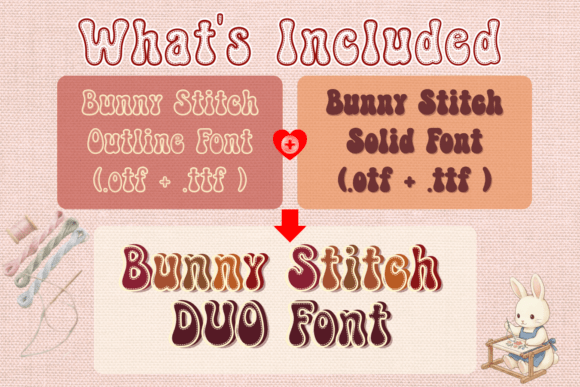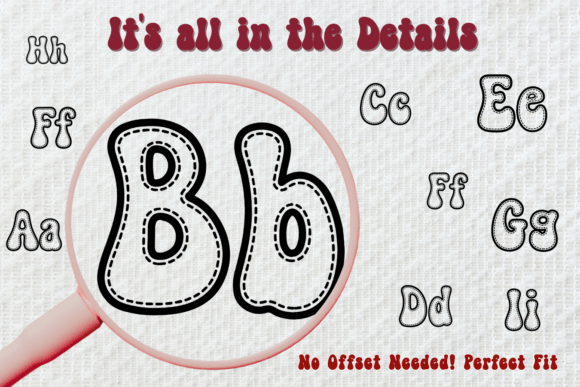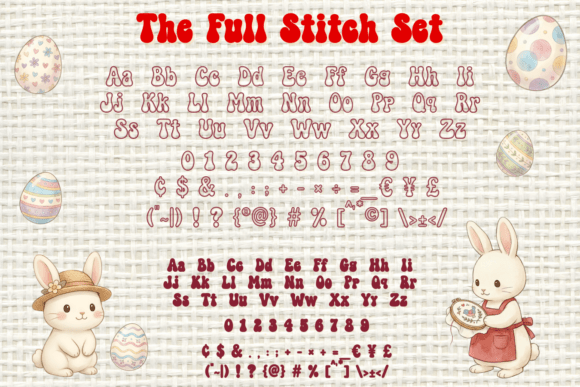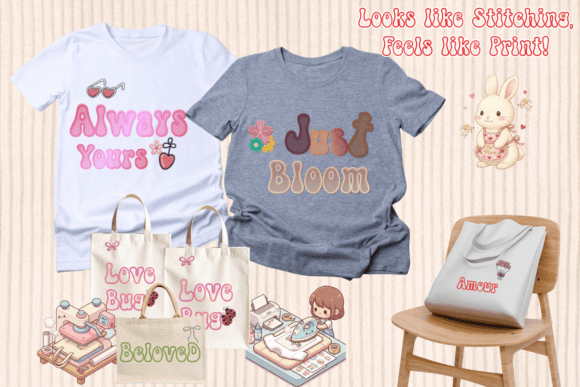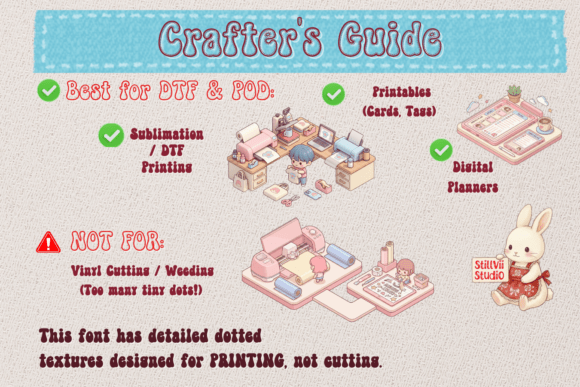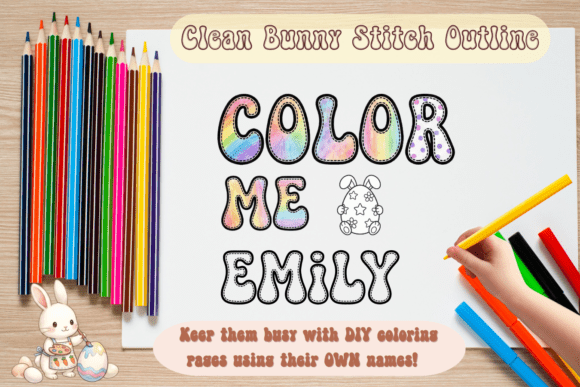
Bunny Stitch Duo Font: The Ultimate Faux Embroidery Font for Crafters and Designers
Are you tired of spending hours stitching and embroidering to achieve that perfect, handmade look? Look no further! Introducing the Bunny Stitch Duo Font, a game-changing solution for crafters and designers who want to bring a cute and cozy warmth to their projects without needing a needle and thread.
What is Bunny Stitch Duo Font?
Bunny Stitch Duo Font is a unique and innovative font designed to mimic the nostalgic charm of running stitches in a playful doodle style. This font is engineered for pro-crafters and businesses, making it perfect for those who want to create high-quality designs with a realistic, sewn look.
Key Features of Bunny Stitch Duo Font
- 2-in-1 Value: Get both the Outline (Stitch texture) and Solid (Color base) fonts, perfect for creating layered designs with a realistic, embroidered look.
- Perfect Layering: Designed to stack perfectly, eliminating the need to create offsets manually. Simply type the Solid layer, change the color, and type the Outline layer on top.
- Realistic Texture: Hand-crafted to achieve a genuine, stitched look that’s sure to impress.
With Bunny Stitch Duo Font, the design possibilities are endless. Use it to:
- Create custom school worksheets and educational materials.
- Design coloring pages and activity sheets for kids.
- Develop unique and eye-catching apparel, such as t-shirts, hoodies, and tote bags.
- Make personalized home decor items, like pillowcases, aprons, and tea towels.